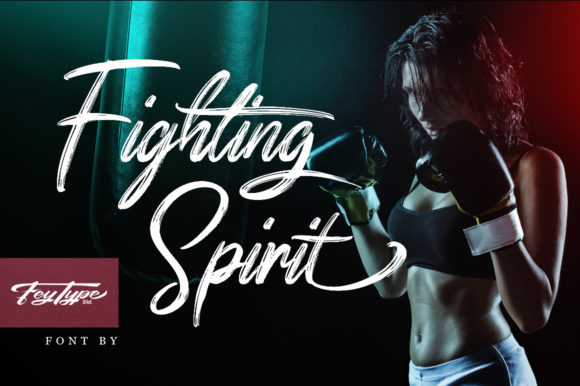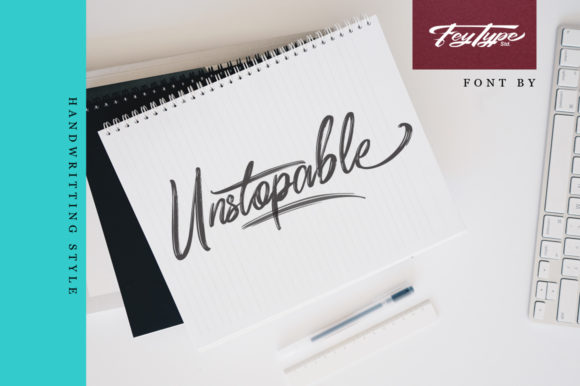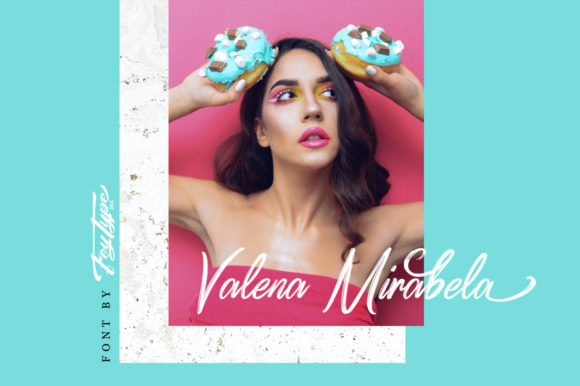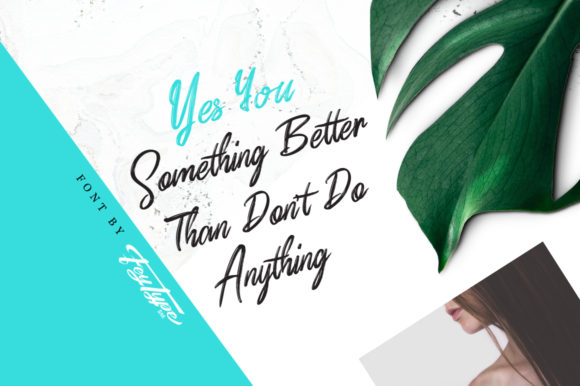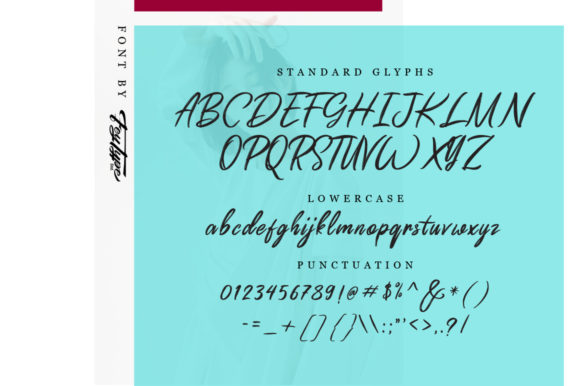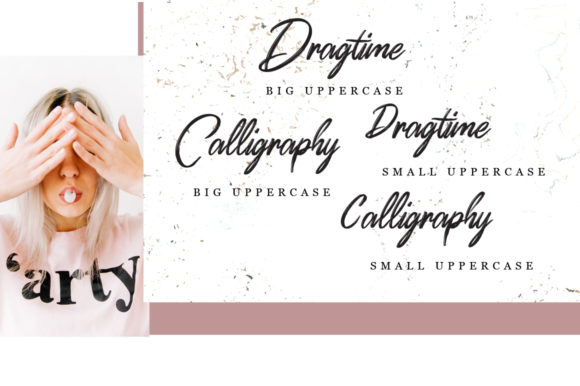
Introducing Dragtime Font: The Ultimate Handwritten Script Font for Creative Projects
Are you a designer or crafter looking for a unique and elegant font to elevate your creative projects? Look no further than Dragtime Font, an amazing handwritten script font that is sure to impress. With its beautiful signature style, Dragtime Font is perfect for a wide range of applications, from wedding stationery to logos, badges, stickers, t-shirts, and much more!
The Features of Dragtime Font
Dragtime Font is a carefully crafted handwritten script font that boasts a range of features that make it stand out from the crowd. Here are just a few of the key benefits of using Dragtime Font:
- Beautiful Signature Style: Dragtime Font features a stunning signature style that is perfect for creating elegant and sophisticated designs. Whether you’re designing wedding stationery or a logo for a luxury brand, Dragtime Font is sure to impress.
- Handwritten Script: Unlike generic fonts, Dragtime Font is a genuine handwritten script font that has been carefully crafted to capture the nuances and imperfections of handwriting. This gives it a unique and personal touch that is sure to resonate with your audience.
- Versatile: Dragtime Font is incredibly versatile and can be used for a wide range of creative projects. Whether you’re designing a logo, badge, sticker, or t-shirt, Dragtime Font is the perfect choice.
- Easily Readable: Despite its elegant and cursive nature, Dragtime Font is surprisingly easy to read, making it perfect for use in body text as well as headings and titles.
Uses for Dragtime Font
So, what can you use Dragtime Font for? The possibilities are endless! Here are just a few ideas to get you started:
- Wedding Stationery: Create beautiful wedding invitations, save-the-date cards, and thank-you notes with Dragtime Font.
- Logos and Branding: Use Dragtime Font to create elegant and sophisticated logos for luxury brands, boutiques, and small businesses.
- Badges and Stickers: Design custom badges and stickers with Dragtime Font for events, promotions, or giveaways.
- T-Shirts and Apparel: Create stunning t-shirt designs with Dragtime Font for fashion brands, events, or fundraisers.
- Social Media Graphics: Use Dragtime Font to create eye-catching social media graphics, including Facebook and Twitter headers, Instagram stories, and more.
Why Choose Dragtime Font?
With so many fonts available, why choose Dragtime Font? Here are just a few reasons why Dragtime Font stands out from the crowd:
- Unique and Exclusive: Dragtime Font is a unique and exclusive font that is sure to set you apart from the competition.
- High-Quality Design: Dragtime Font has been carefully designed to the highest standards, ensuring that it looks great in any context.
- Easily Customizable: Dragtime Font is easily customizable, allowing you to adjust the font to suit your specific needs.